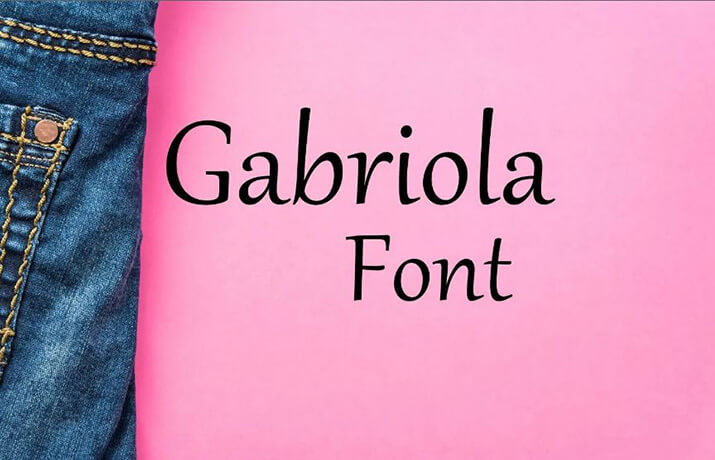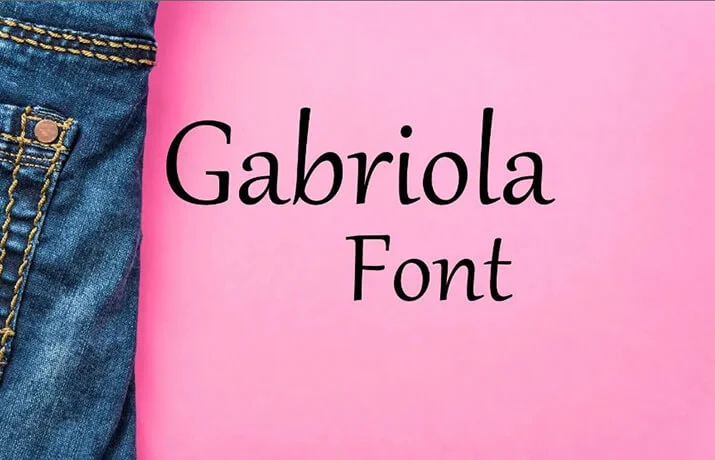
Today we are introducing a very stylish font known as Gabriola font which belongs to the modern display typeface family. That has unique characters, stylistic sets, and glyphs.
John Hudson is a famous type designer who took charge of the creation and sharing of this amazing typeface in 2008.
Basically, it is inspired by the Dutch calligrapher Jan van de Velde the Elder. Advance comes in a very cool and artistic style with open-type features.
This unique and elegant-looking font has a heart script with a popular texture so it can also be used in pairing with Belarose Font combinations.
Font Name: Gabriola Font Family
Style: Script, Display, Typeface
Font Designer: John Hudson
With this font help, you can create stylish cards, posters, flyers, cards, unique emblems, game graphics, product designs, product packaging, special quotes, fashion magazines, branding, shopping bags, and so on.